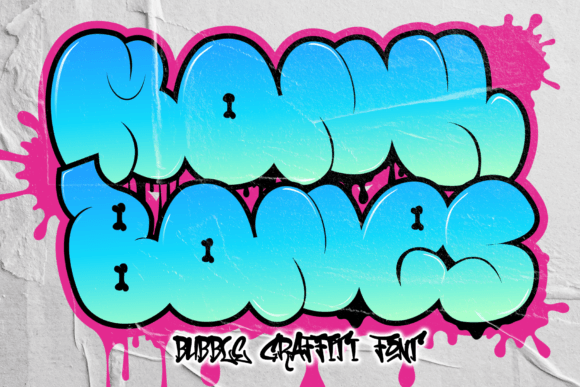
Get ready to unleash your creativity with Monk Bones Font, the ultimate display font family that embodies the essence of urban art and graffiti. Crafted by the ingenious mind of sipanji figuree, Monk Bones is more than just a font; it's a gateway to a world where bold statements meet captivating visuals.
Step into a realm where letters become brushstrokes, and words transform into vibrant masterpieces. Monk Bones Font's graffiti style and bubble look add an undeniable edge to your designs, making them pop with personality. Let your imagination soar as you explore the endless possibilities that await you with this extraordinary font.
From branding projects that demand attention to wedding designs that exude elegance, Monk Bones Font is your trusted companion. Create invitations that leave a lasting impression, signatures that ooze sophistication, and logotypes that command respect. Transform your wall art illustrations into captivating murals, and design apparel that speaks volumes.
With Monk Bones Font, labels become more than mere identifiers; they become artistic expressions that tell a story. Unleash your inner artist and let your creativity flow freely as you craft designs that resonate with your audience. The possibilities are boundless, and the results are nothing short of mesmerizing.
Monk Bones Font is not just another font; it's an experience that will redefine your creative journey. Embrace the graffiti spirit and let your designs make a statement. The world is your canvas, and Monk Bones Font is your brush. Start your artistic adventure today and witness the transformation of your designs into captivating masterpieces.